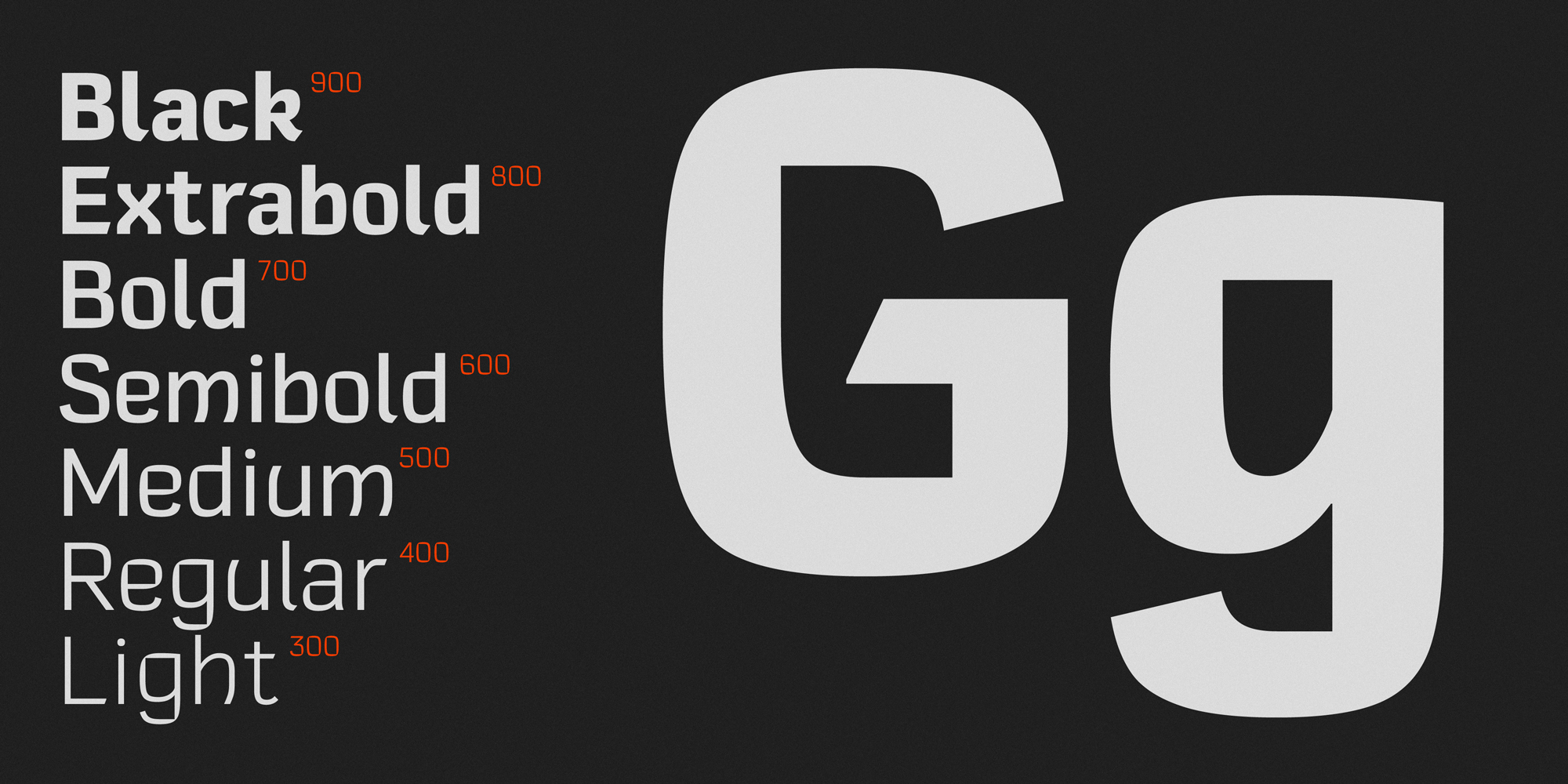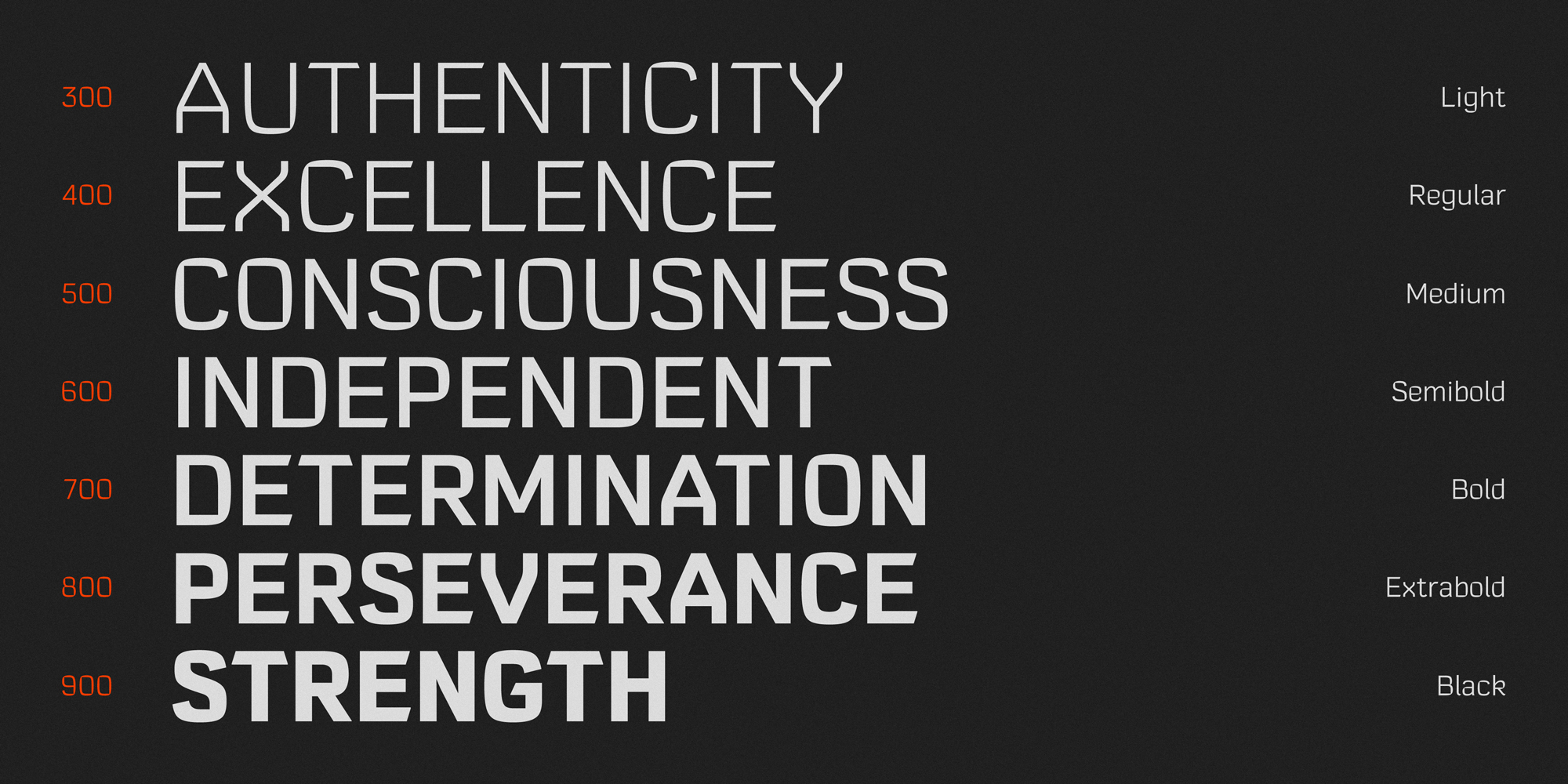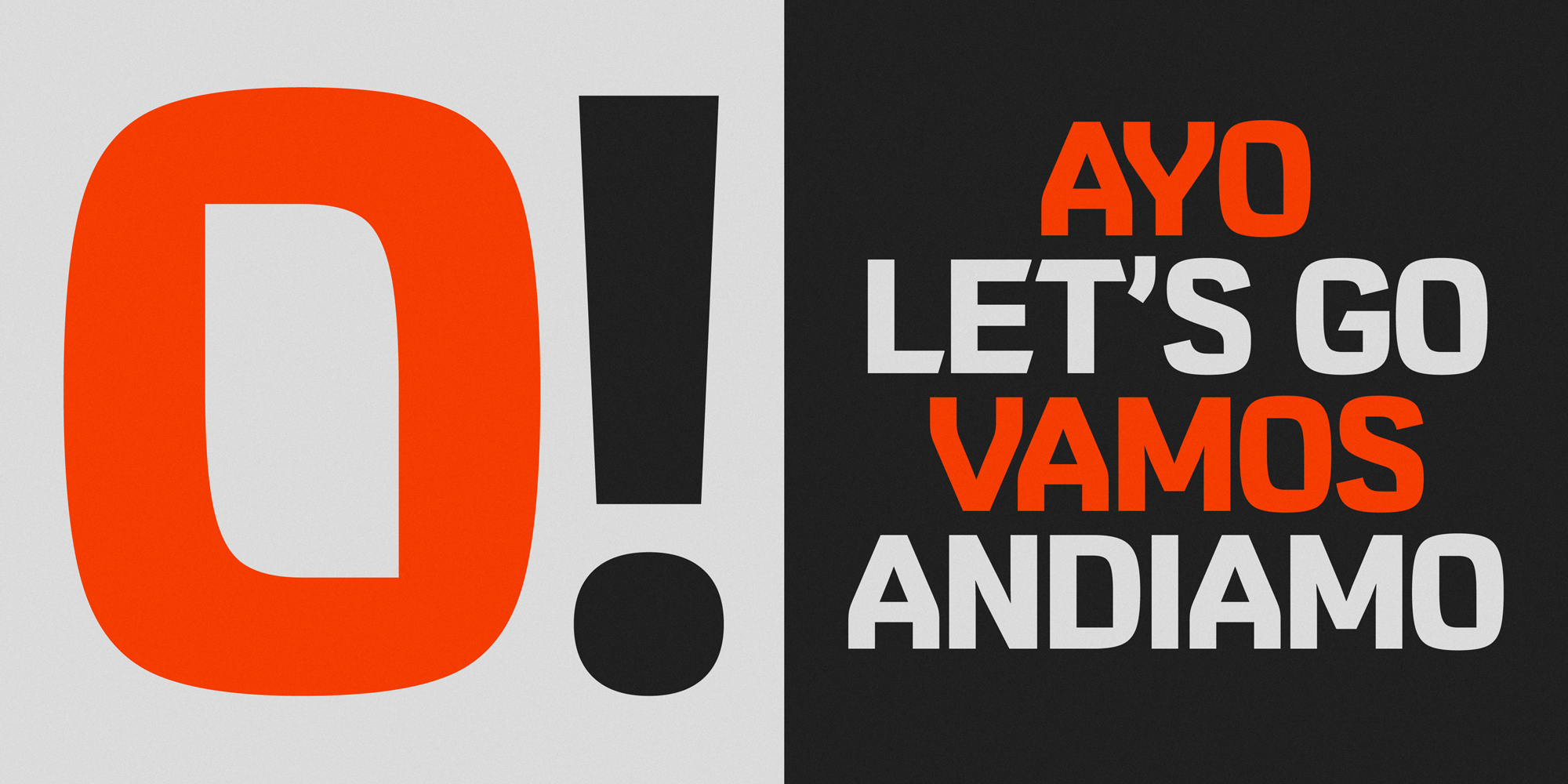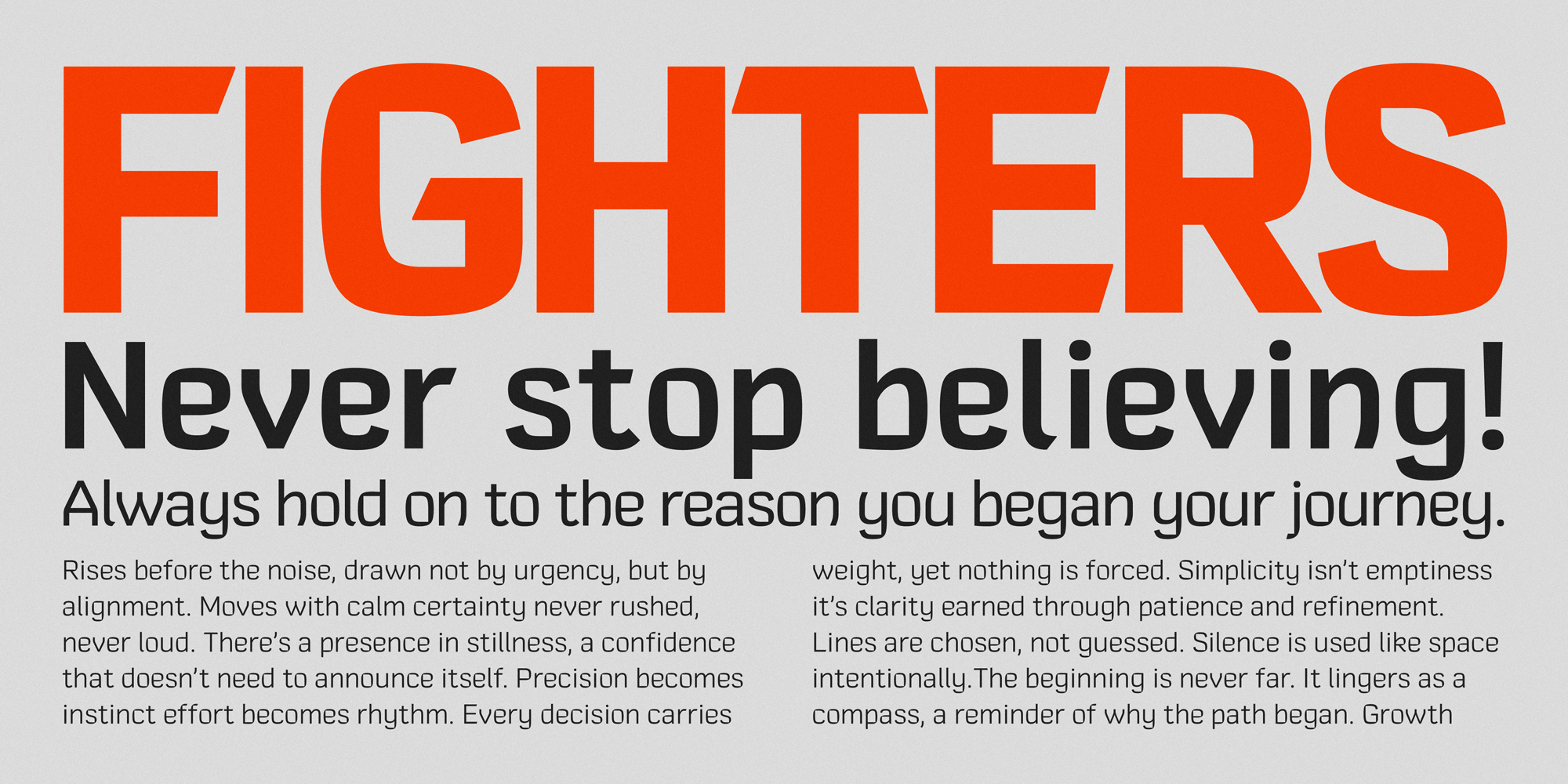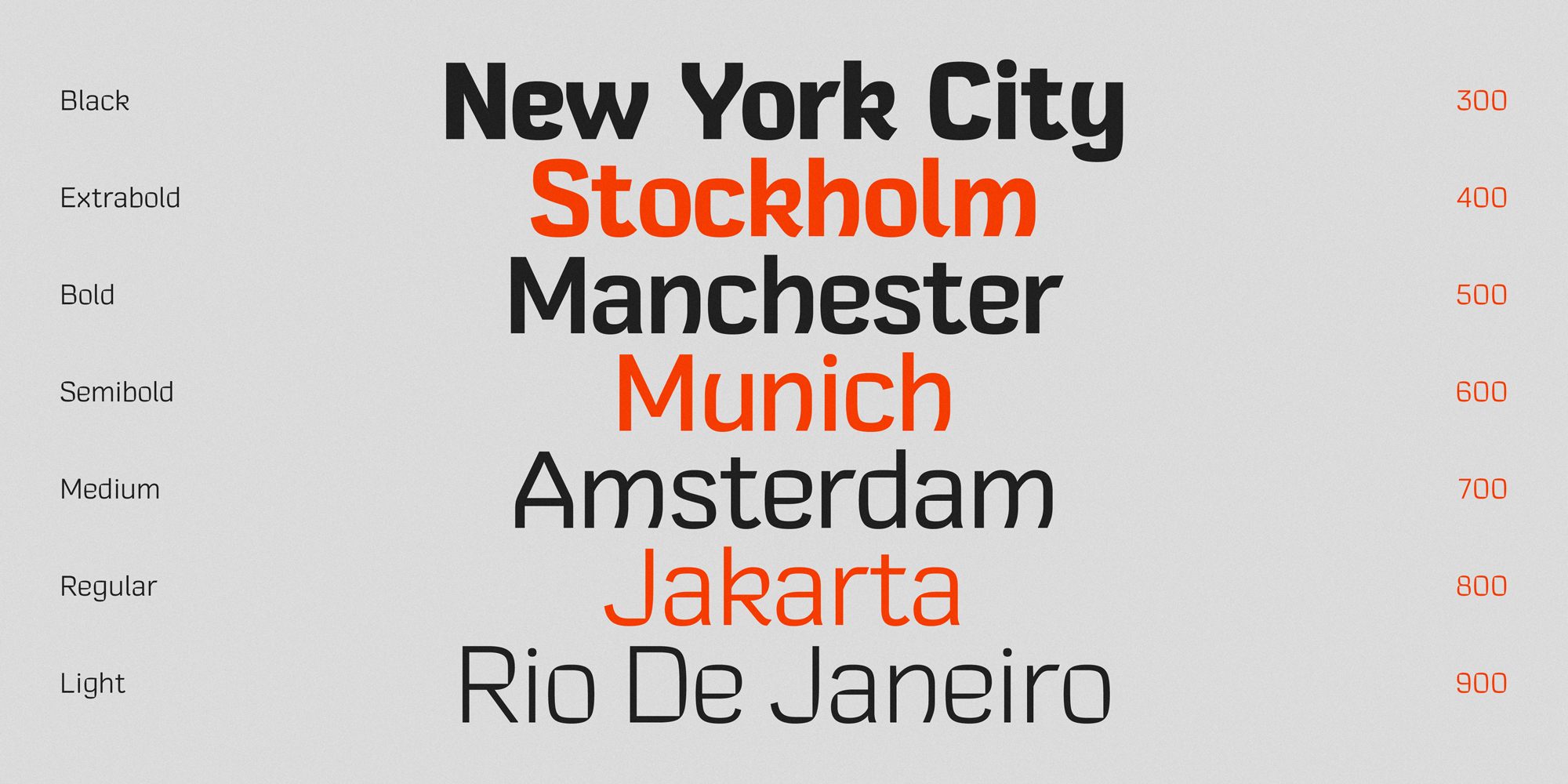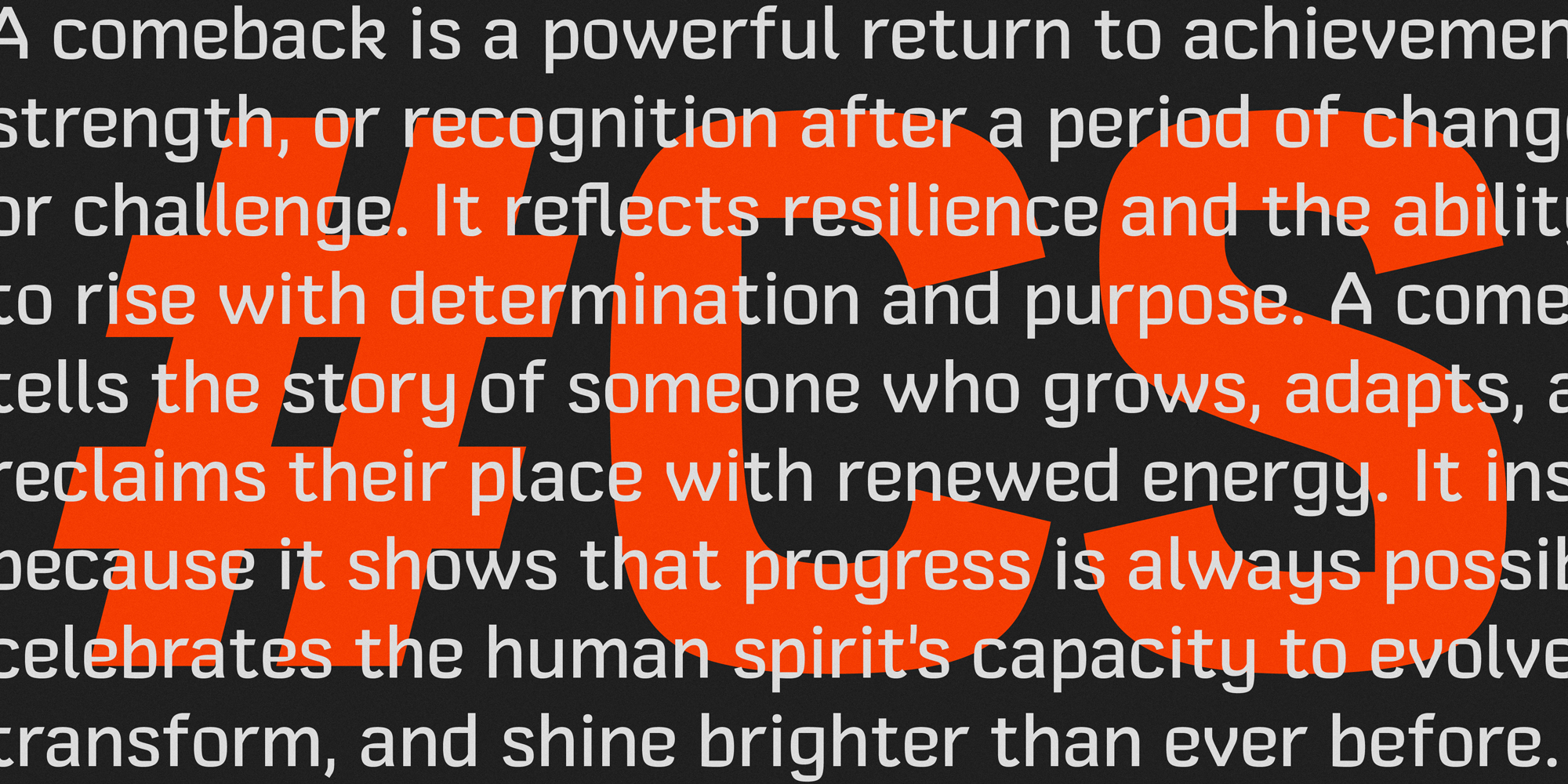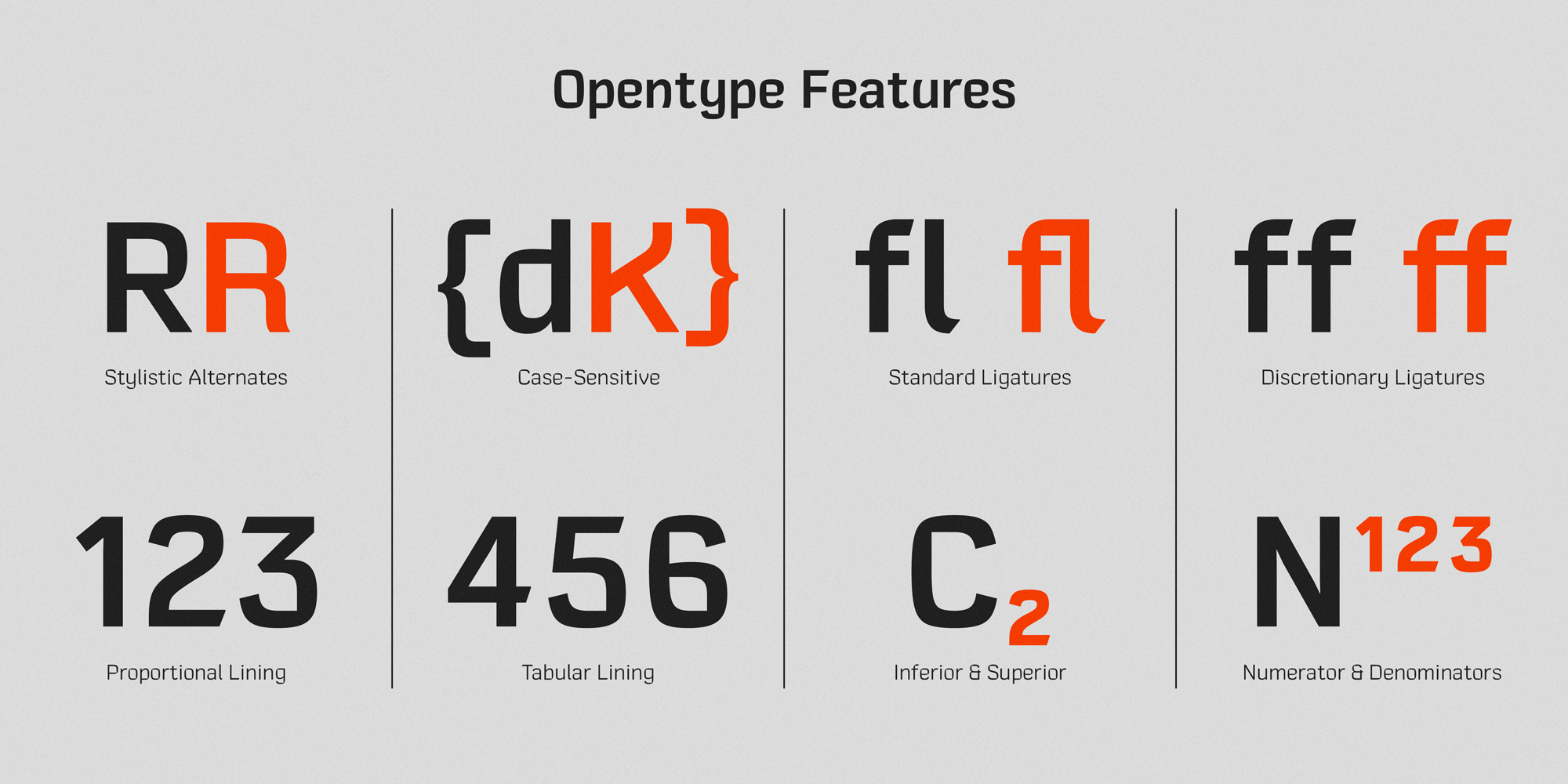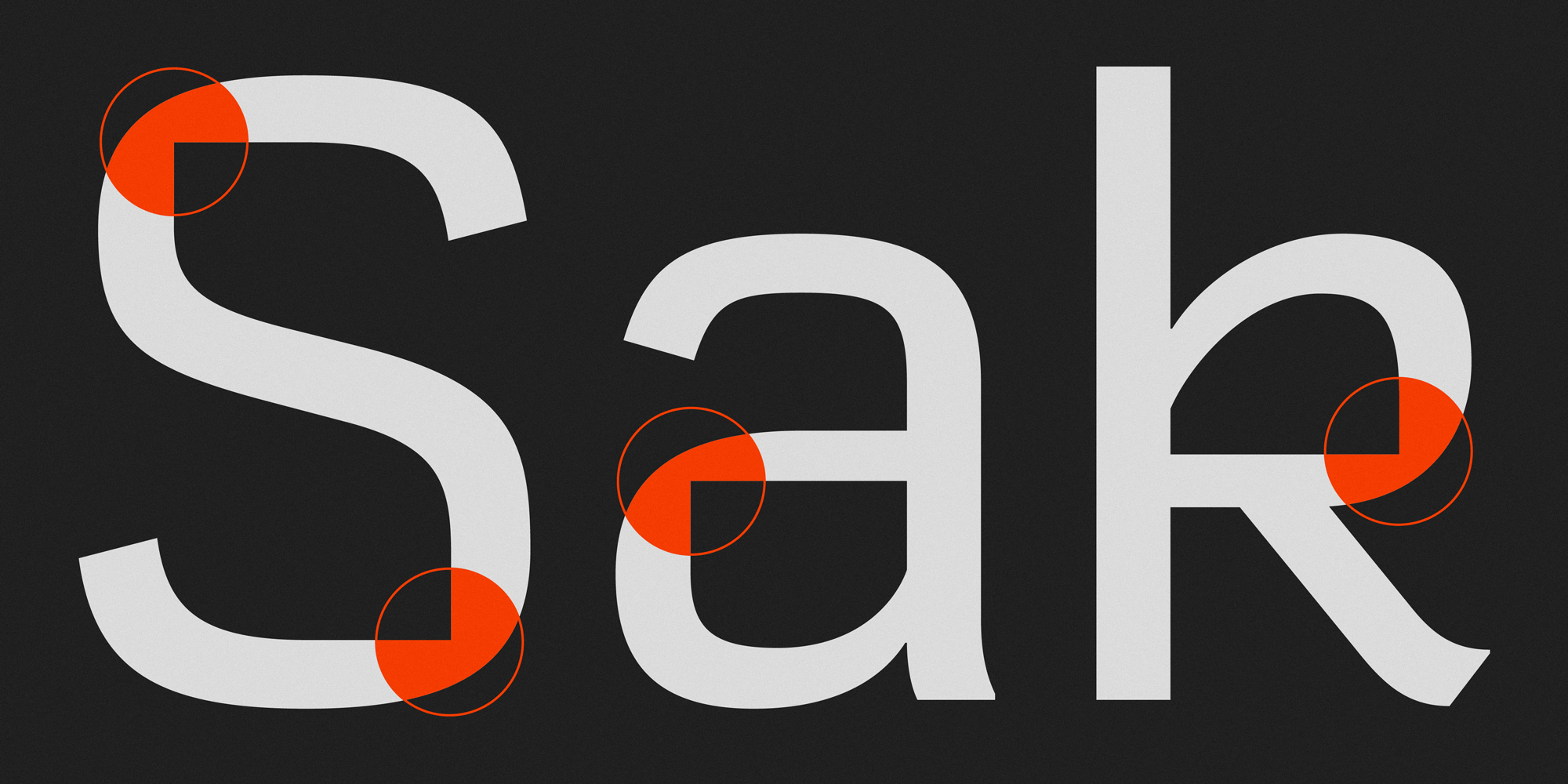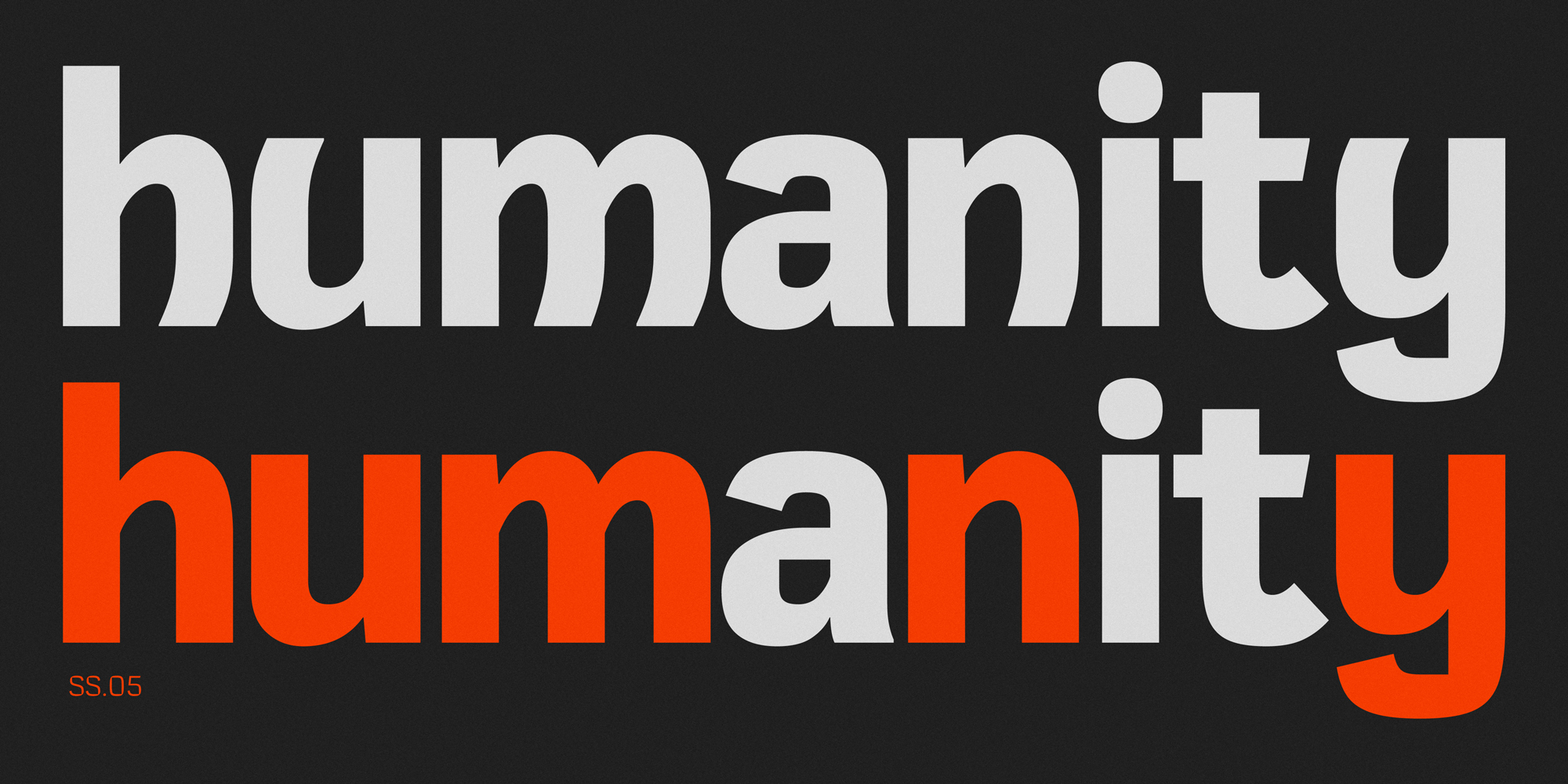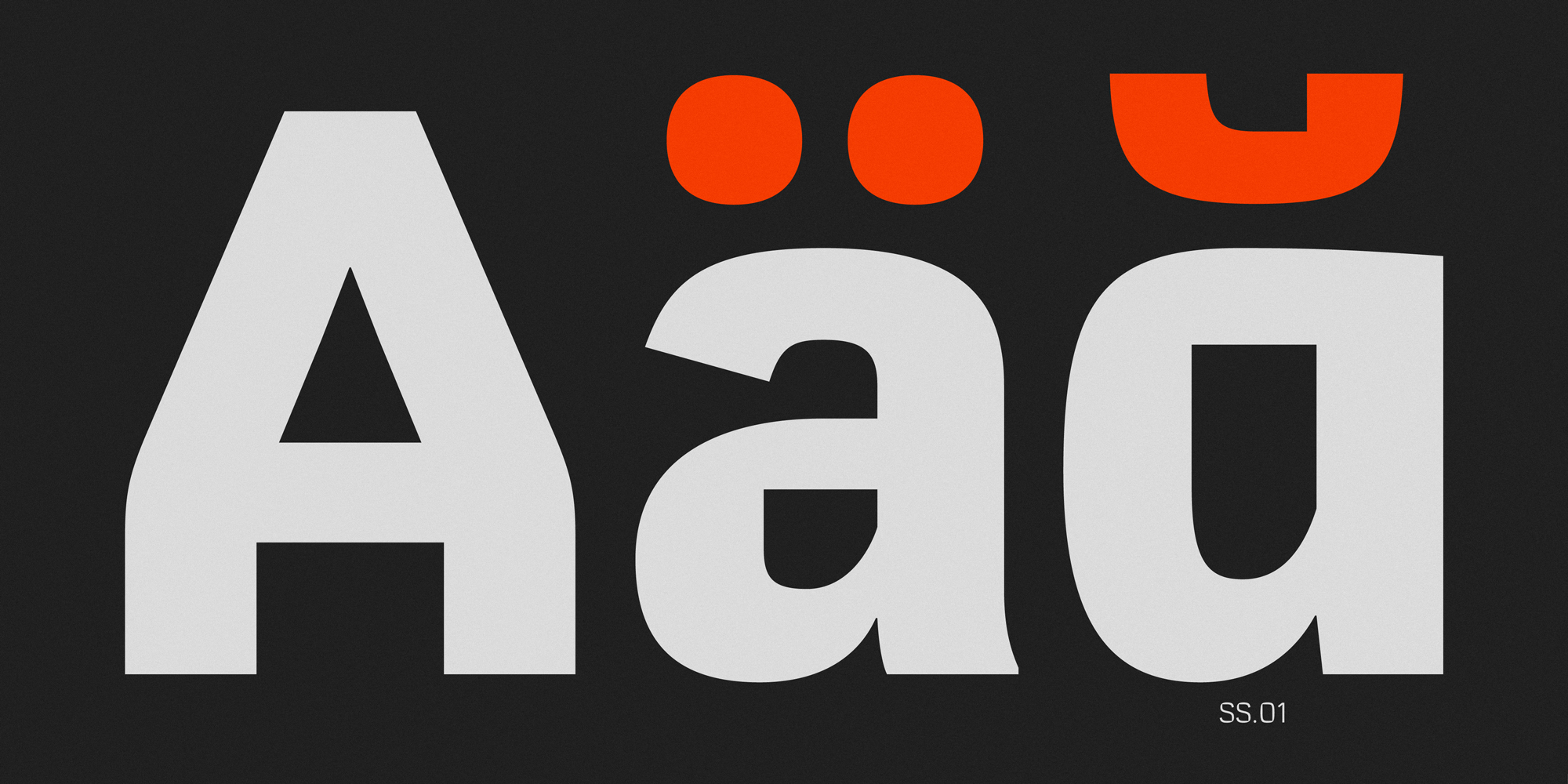
Comeback Sans
Comeback Sans is a powerful humanist sans-serif font family. Comeback Sans more than just a font, it's a spirit. A voice for rising with purpose and moving forward with strength.
Rooted in calligraphic tradition and refined through a modern lens, Comeback Sans blends expressive curves with clean structure. Its forms embody both human touch and spirit, designed to carry messages with strength and purpose.
With seven carefully crafted styles and a versatile variable font, Comeback Sans brings a strong personality to branding, identity systems, and visual storytelling.
Stylistic Alternate (ss01)
a
Stylistic Alternate (ss02)
g
Stylistic Alternate (ss03)
k
Stylistic Alternate (ss04)
l
Stylistic Alternate (ss05)
h
n
u
y
Stylistic Alternate (ss06)
R
Standard Ligatures
ff
fi
ffi
fl
ffl
Discretionary Ligatures
fj
ffj